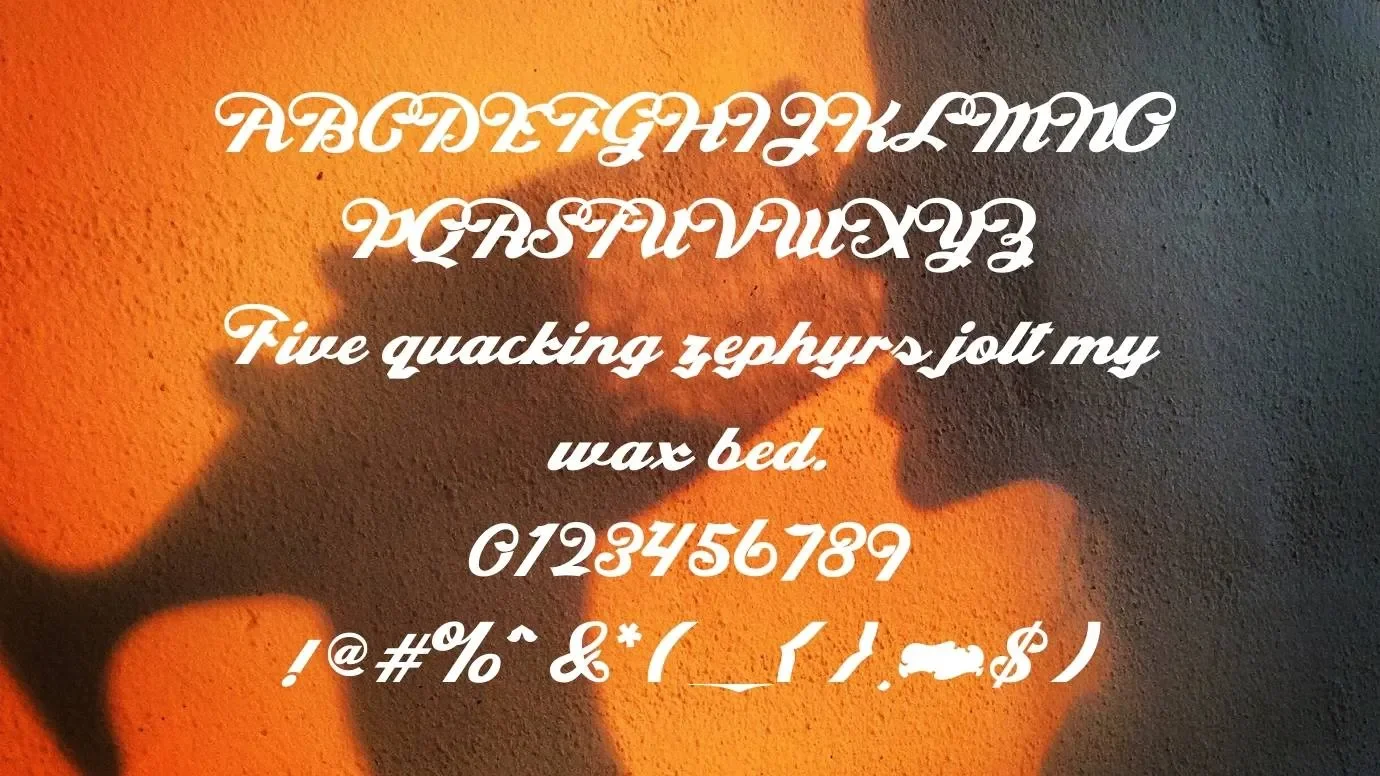
Introducing Miller Lite Font! It is a modern script typeface that was developed by a famous typographic designer named Michael Hagmann. This typeface is published for the first time in 2005. It was designed on the base of an American beer company logo known as “Miller Lite”. Due to the popularity of this company, this typeface has had tremendous success in the font family.
This modern script typeface has only one regular style that creates a number of designs. It has 123 unique characters along with lowercase, punctuations, and uppercase letters. This typeface is best for gaming logos and calligraphy designs.
Reason to Use Miller Lite Font
Due to its bold and italic look, you can use this typeface for calligraphy and other fantastic designs. Many designers use this cozy typeface in their projects for giving a unique look to their designs. You can use this font for banners designs and social media posts.
It is also suitable for advanced script designs and text by pairing with other scrip and calligraphy fonts like Good Vibes Font. You can utilize this typeface in PowerPoint presentations, Emblems, and postcards designs. It is also usable for greeting cards, invitation cards, business cards, and many other cards designs.
What font does use for Miller Lite Font?
New Caledonia Font is used for the creation of this typeface due to its similar design and look.
What type of font is Miller Lite Font?
It is a script font that was developed by a famous font designer named Michael Hagmann. It was released for the first in the year 2015.
This typeface is best for all types of logos designs and astonishing website logos due to its stylish and good spacing characters.